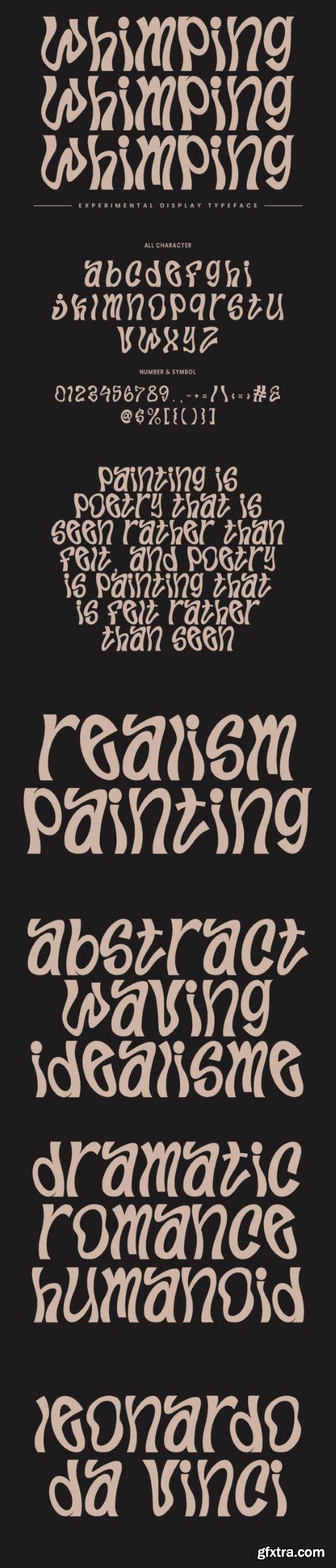
Whimping is an experimental display typeface. This font is good for logo design, Social media, Movie Titles, Books Titles, a short text even a long text letter and good for your secondary text font with script or serif. Make a stunning work with Whimping experimental display typeface.